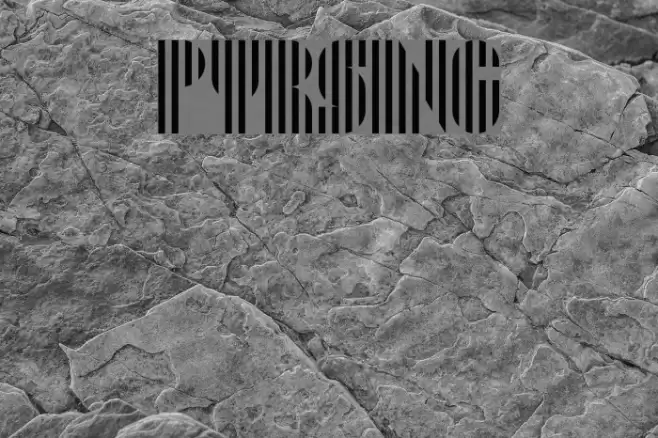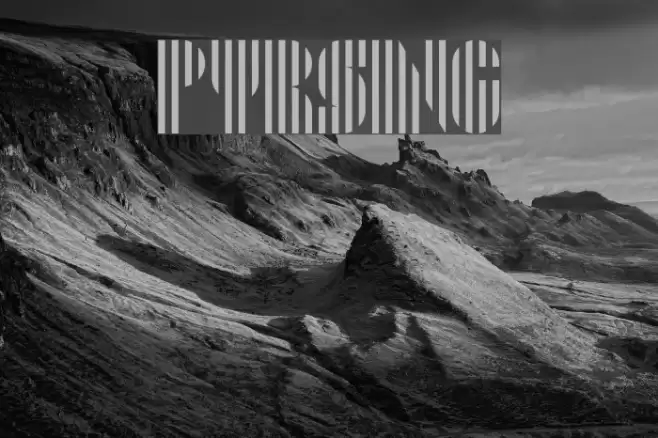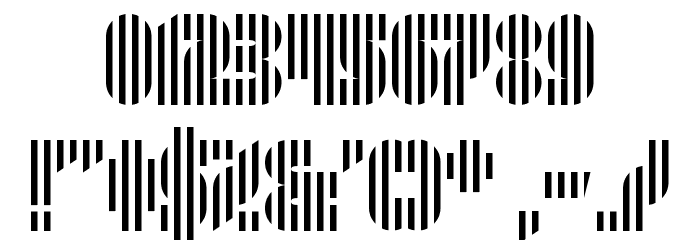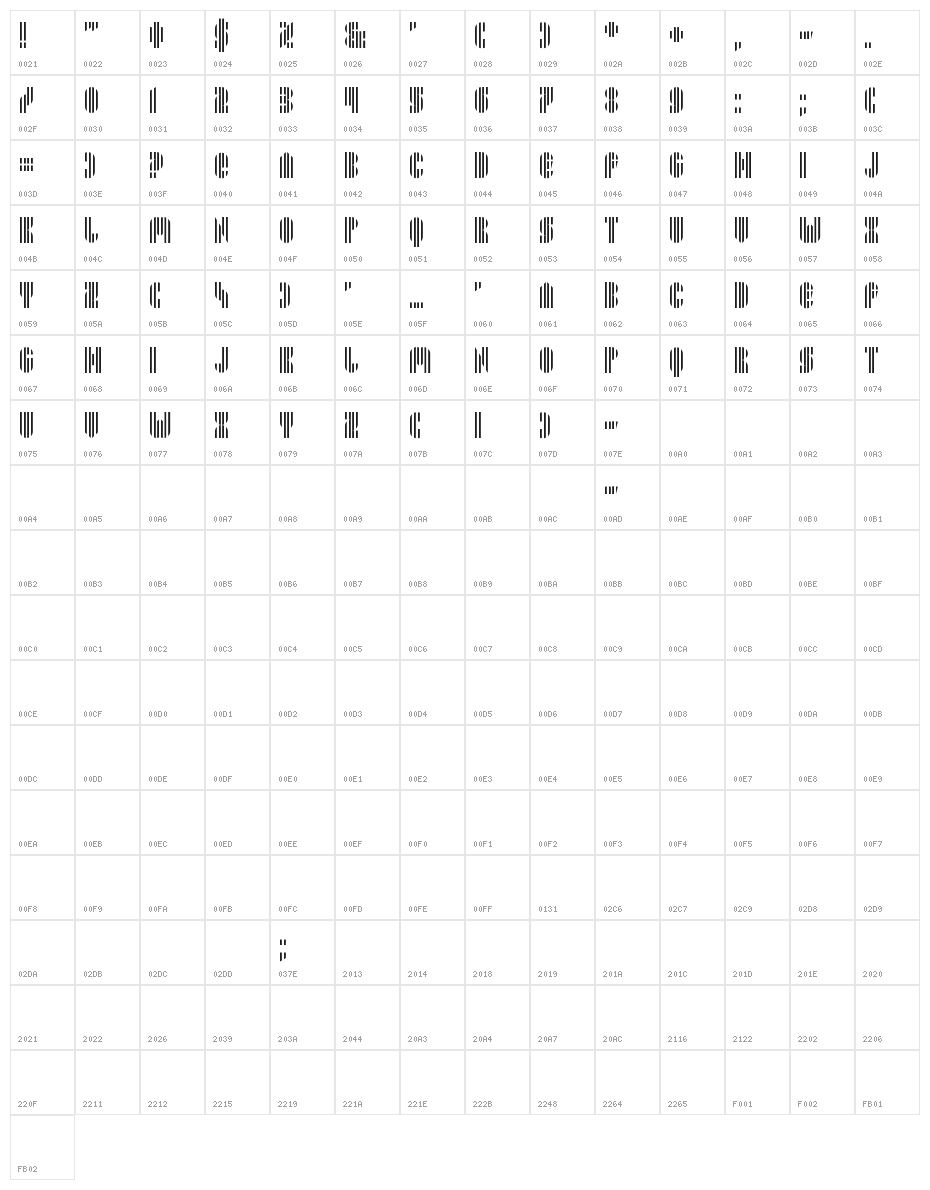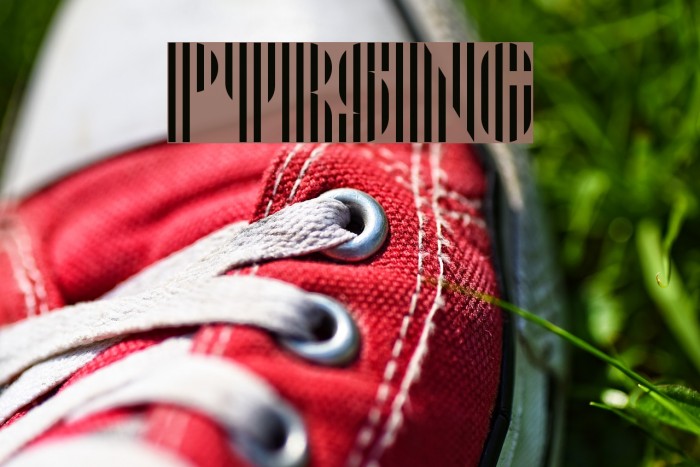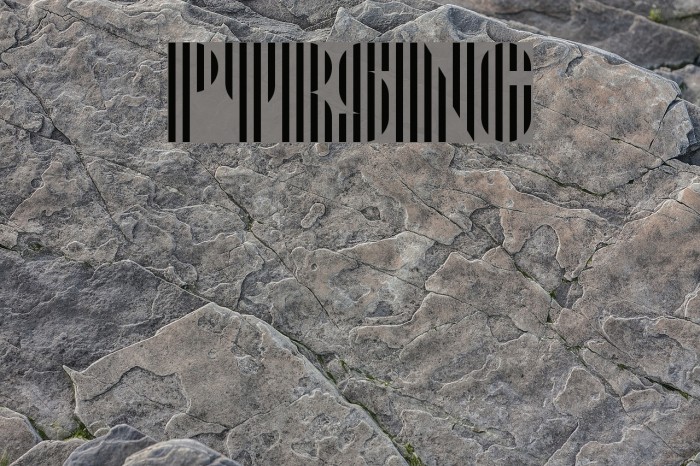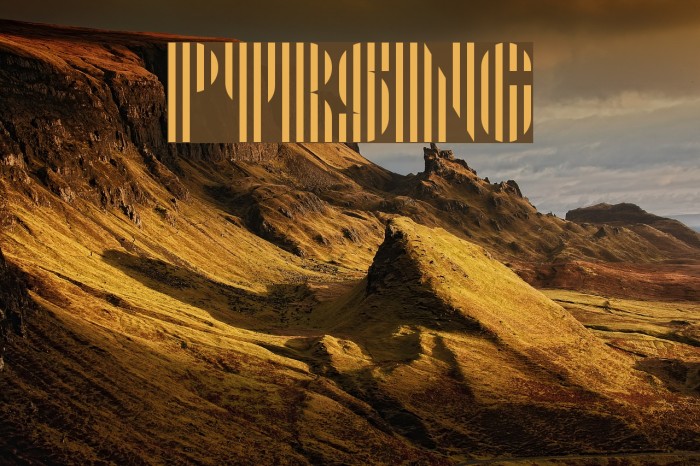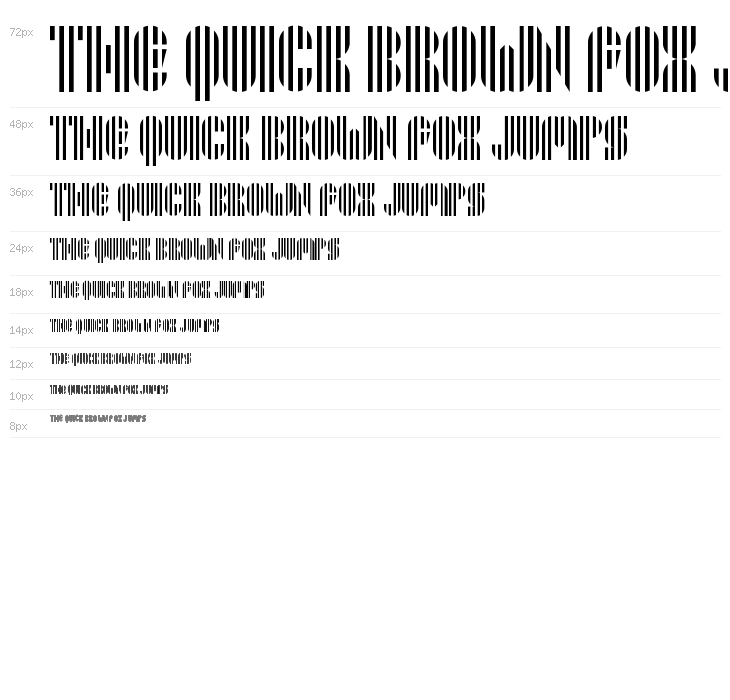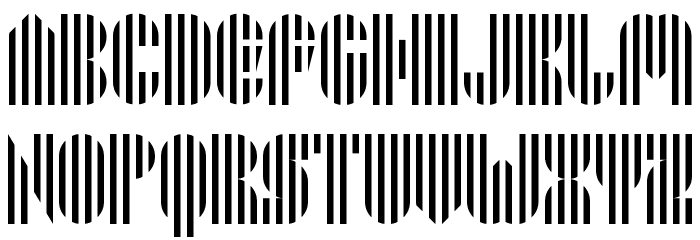
Pyrsing Font
Pyrsing Description
This font features a bold and striking design characterized by vertical stripes that create a stencil-like appearance. The letters are constructed with alternating thick and thin lines, giving it a unique and modern aesthetic. The uppercase and lowercase letters maintain a consistent style, while the numbers and special characters follow the same design principles. This font's distinct look makes it stand out, offering a visually engaging experience. The overall design is geometric and structured, with a strong emphasis on verticality, making it ideal for attention-grabbing headlines and displays.
A bold, striped stencil-like font with a modern, geometric design from Decorative fonts.
- Proposed Projects: Ideal for branding, posters, album covers, and any project requiring a bold, modern statement.